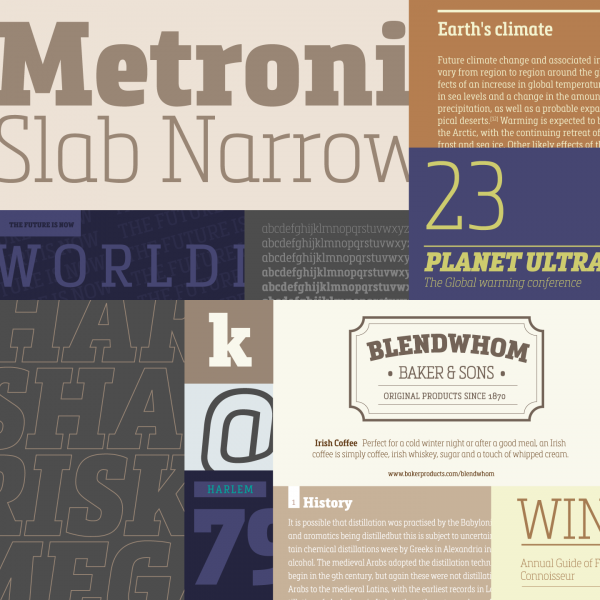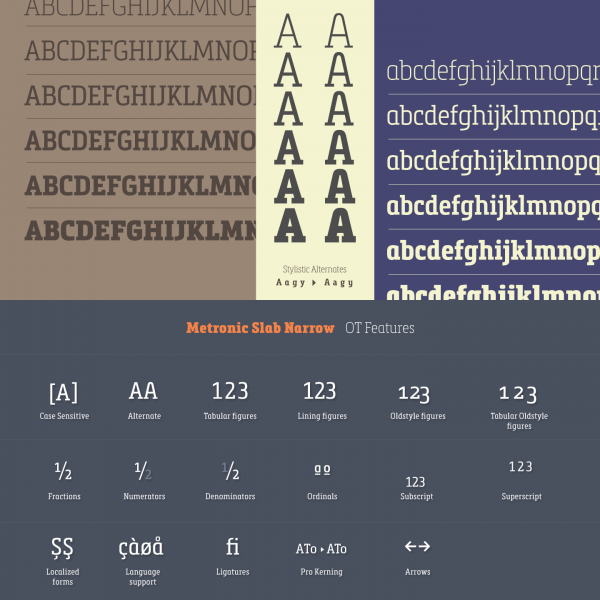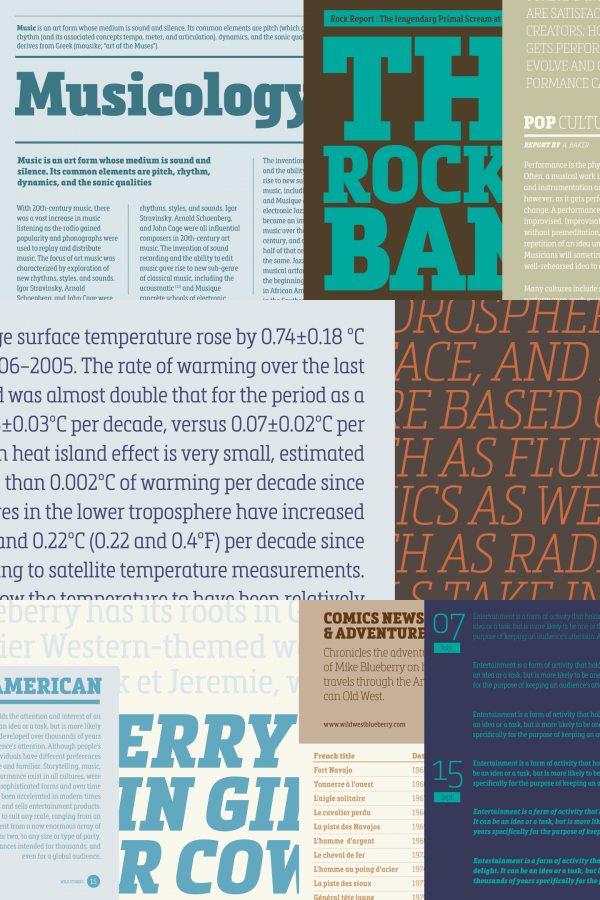
Metronic Slab Narrow font family, a stylish condensed companion of Mostardesign’s Metronic Slab typeface.
French graphic and type designer, Olivier Gourvat of studio Mostardesign has created the Metronic Slab Narrow font family from 2013-2014 as a condensed version of his Metronic Slab typeface. Metronic Slab Narrow is a space-saving font family with great legibility and plenty of typographic options. This contemporary slab serif has been designed for both headlines and text use. With six weights plus matching italics as well as different stylistic alternates and lots of OpenType features, Metronic Slab Narrow is intended for highly professional use. You can get it as webfont and desktop font.
Its various OpenType features include Fractions, Numerators, Denominators, Ordinals, Subscript and Superscript, Ligatures, Alternates, Tabular Figures, Lining Figures, Oldstyle Figures, and Tabular Oldstyle Figures, just to name a few. The typographic possibilities seem endless. To know more about all options, just follow the link below.